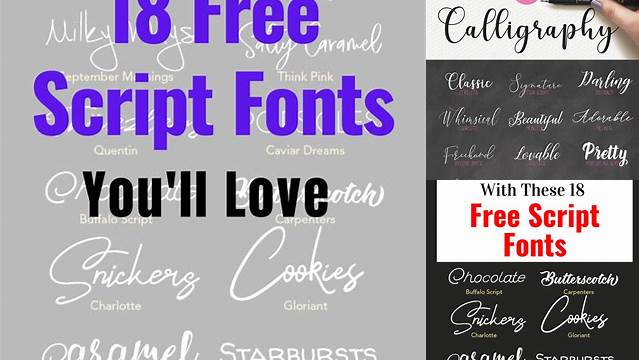
Hey guys, are you on the hunt for some stunning script fonts to jazz up your design projects? Well, you've landed in the right spot! This guide is all about free script fonts that you can download and use. We'll dive into what makes these fonts special, where to find them, and how to pick the perfect one for your needs. Ready to make your designs pop with some elegant handwriting fonts?
What Are Script Fonts?
First things first, what exactly are script fonts? Imagine fonts that mimic the flow and elegance of handwriting. They're designed to look like they were created with a pen, brush, or other writing tools. Script fonts bring a touch of sophistication, personality, and often, a hint of romance to any design. You've probably seen them used everywhere, from wedding invitations and logos to websites and social media graphics. The beauty of script fonts lies in their versatility. There are so many different styles, ranging from the super formal and traditional to the more casual and modern. Some scripts are elegant and flowing, with connected letters that create a seamless look. Others are more playful and loose, with individual letters that add a unique touch. This variety allows designers to choose the perfect font to match the tone and style of their project. The use of script fonts can instantly elevate the visual appeal of your work, making it stand out from the crowd. When used correctly, script fonts can create a strong brand identity, attract attention, and leave a lasting impression on your audience. Understanding the different types of script fonts and how they can enhance your designs is crucial. This will give you the tools to select the font that fits your project and effectively communicate your message. Different script fonts come in various weights and styles, which add a whole new dimension of visual appeal. Choosing the right font is a crucial skill. The right script font will not only catch the eye but will also convey a sense of professionalism and creativity. Whether you're crafting a logo, designing a website header, or creating marketing materials, the choice of script font can significantly impact the final look and feel of your project.
Where to Find Free Script Fonts
Now for the good stuff – where can you snag these gorgeous fonts for free? There are tons of websites out there that offer free script fonts, but here are a few of the best places to start your search:
- Google Fonts: Google Fonts is a fantastic resource, offering a wide array of fonts, including many beautiful script options. The best part? They're all free and easy to download and use. You can browse by category, filter by style, and even preview your text in different fonts before downloading.
- Font Squirrel: This is another excellent site with a curated collection of free fonts, including some amazing script fonts. Font Squirrel is known for its high-quality fonts and user-friendly interface. The site also provides information on font licensing, so you know exactly how you can use each font.
- DaFont: DaFont is a popular website with a massive library of free fonts. You'll find tons of script fonts here, from classic to modern styles. Keep in mind that some fonts may have different licenses, so always check the usage rights before using them for commercial projects. DaFont is a great place to browse for font inspiration, with a wide selection that caters to different design needs.
- BeFonts: This is another great place to find free fonts. It has a huge collection, including some very unique script fonts. Before you download any font, check the license for use. Not all fonts can be used commercially.
- Creative Market: While Creative Market is known for its premium fonts and design assets, they often have freebies available. Regularly check their free goods section, as they sometimes offer free script fonts and other goodies. Creative Market provides a platform for designers to showcase and sell their work. This is a perfect place to find unique fonts.
Tips for Choosing the Right Script Font
Choosing a script font is like picking the right outfit – it has to fit! Here are a few tips to help you find the perfect script font for your project:
- Consider Your Project: What are you designing? Is it a wedding invitation, a logo, a website header, or something else? The project's purpose will help determine the appropriate style of script. For formal projects, go for classic, elegant scripts. For more casual projects, a modern or playful script might be more suitable. The tone of your project will help you choose a font that enhances your work.
- Readability: Make sure the font is readable, especially if it's used for body text or important information. Some script fonts can be tricky to read at smaller sizes. Choose a font that's easy to read at the size you plan to use it. Test the font at various sizes to ensure it is readable and maintains its visual appeal. Also, take into account the color contrast between the font and the background to ensure legibility.
- Spacing: Consider the spacing between letters and words. Some script fonts have very tight spacing, which can make them difficult to read. Make sure the spacing is comfortable and doesn't cause the text to appear cluttered. Adjusting the kerning (the space between individual letters) and tracking (the space between groups of letters) can improve readability. Experiment with different spacing options to optimize the font's appearance.
- License: Always check the font's license before using it. Some free fonts are only for personal use, while others can be used commercially. Understand the license terms to avoid any legal issues. Ensure that you are using the font according to the terms of its license, whether it's for personal or commercial use. Many free fonts are available under the SIL Open Font License, which permits free use, modification, and distribution.
- Pairing: Think about how the script font will look with other fonts. It's often a good idea to pair a script font with a simple, clean sans-serif font for body text or headlines. This creates a visual balance and prevents the design from feeling overwhelming. Experiment with different font combinations to find a harmonious blend. Consider the weight, style, and overall design of the fonts to ensure they complement each other. Choosing the right pairings is crucial for the overall harmony and readability of your design.